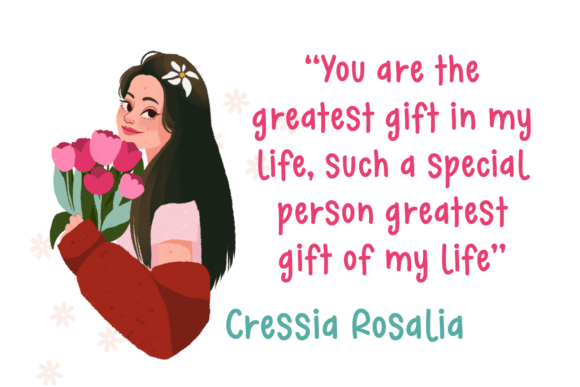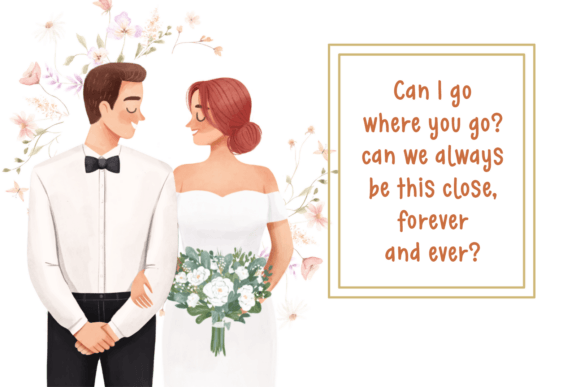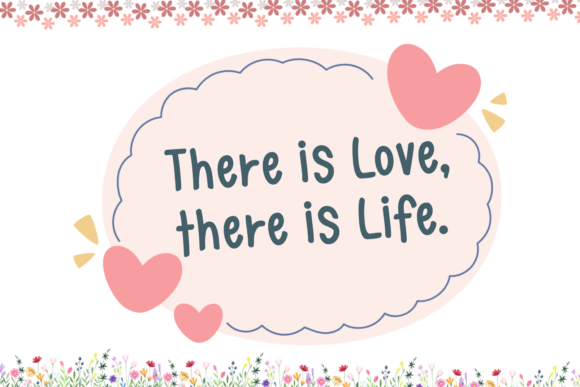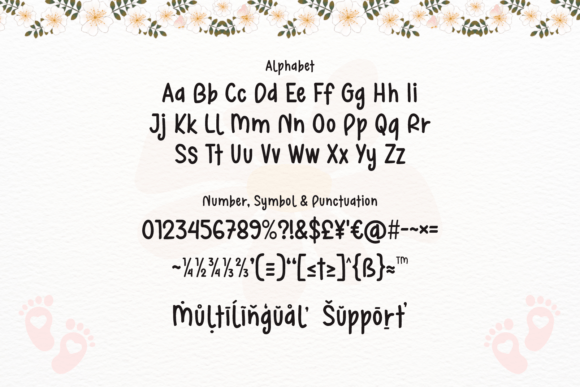
The Joy of Friendship Enough Font: A Designer’s New Best Friend
I’ll never forget the time I was working on a children’s book project, pouring my heart and soul into the illustrations, but struggling to find the perfect font to match the whimsical tone. That’s when I stumbled upon Friendship Enough, a handcrafted font that instantly brought a smile to my face. With its rounded characters and distinctive flair, it was like the perfect conversation starter – warm, friendly, and inviting. In this article, I’ll share my experience with Friendship Enough, and explore how you can make the most of this delightful font in your own creative projects.
Here’s what I’m obsessed with about Friendship Enough:
- ✨ The playful vibe it brings to any project – it’s like a breath of fresh air!
- ✅ The rounded characters are so on-trend, and add a touch of whimsy to even the most mundane text.
- 💕 The font’s warmth and approachability make it perfect for projects that need a friendly tone.
Of course, no font is perfect, and here are a few quirks to keep in mind:
- 🤔 Some of the letters might be a tad too playful for very formal projects – use your discretion!
- ⚠️ As with any handcrafted font, there might be some limitations with certain OpenType features – but trust me, it’s worth it.
The Story Behind Friendship Enough
According to the designer, Friendship Enough was inspired by the joy of human connection and the beauty of handwritten letters. The goal was to create a font that would bring people together, rather than drive them apart. And I think they’ve succeeded!
- A: Yes, Friendship Enough is versatile enough to be used for branding and logo design, but keep in mind its playful personality might not suit every brand.
- A: Friendship Enough is perfect for children’s book illustrations! Its playful vibe and rounded characters will bring your illustrations to life.